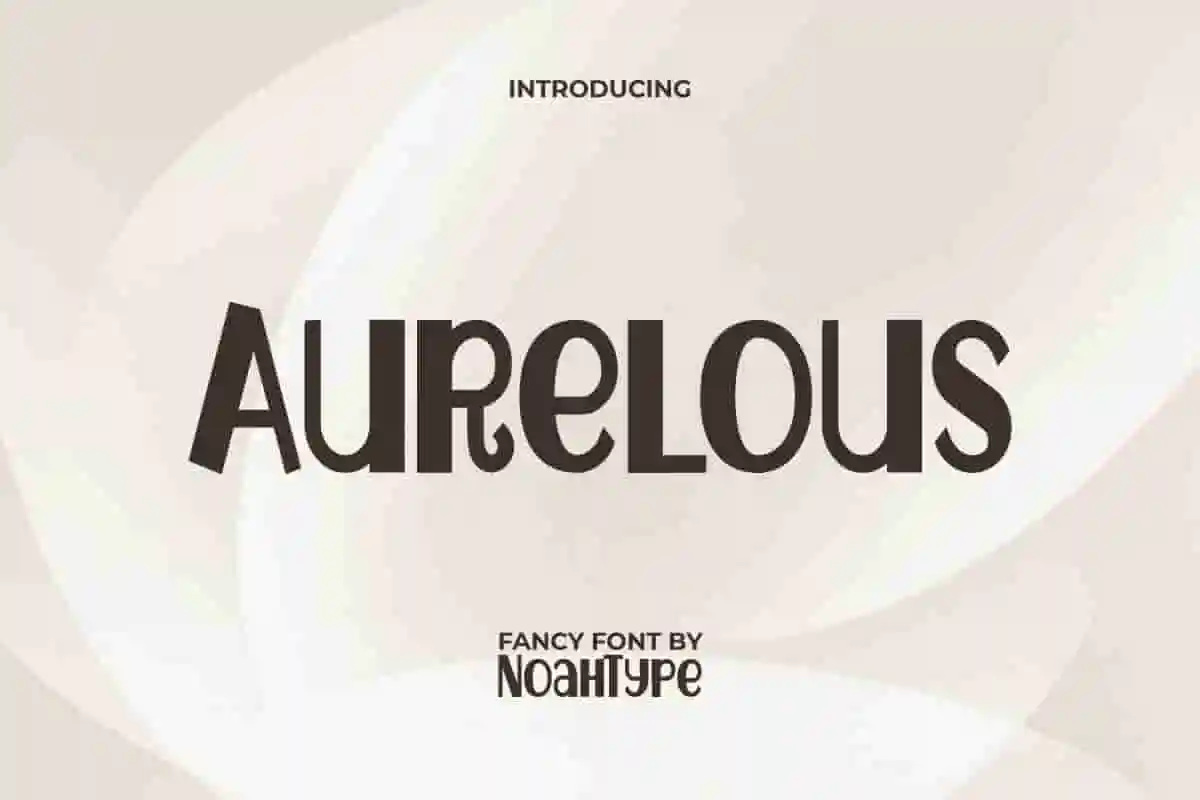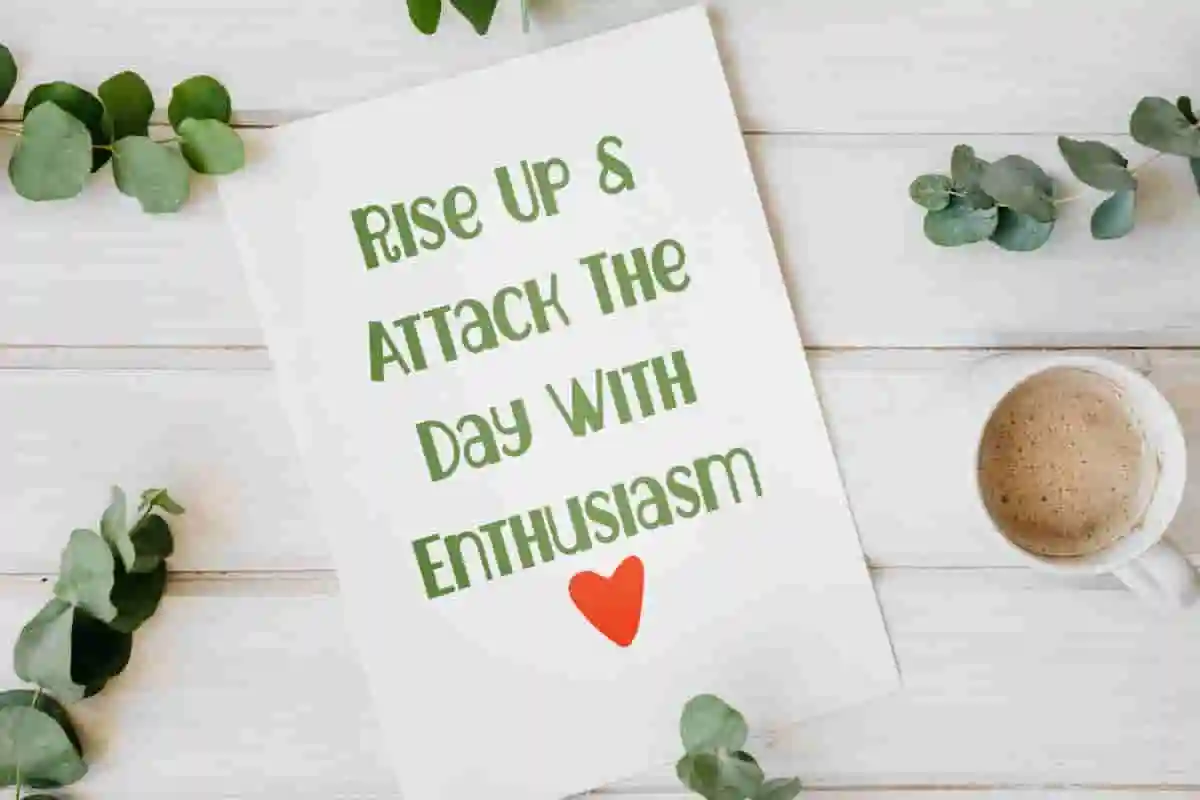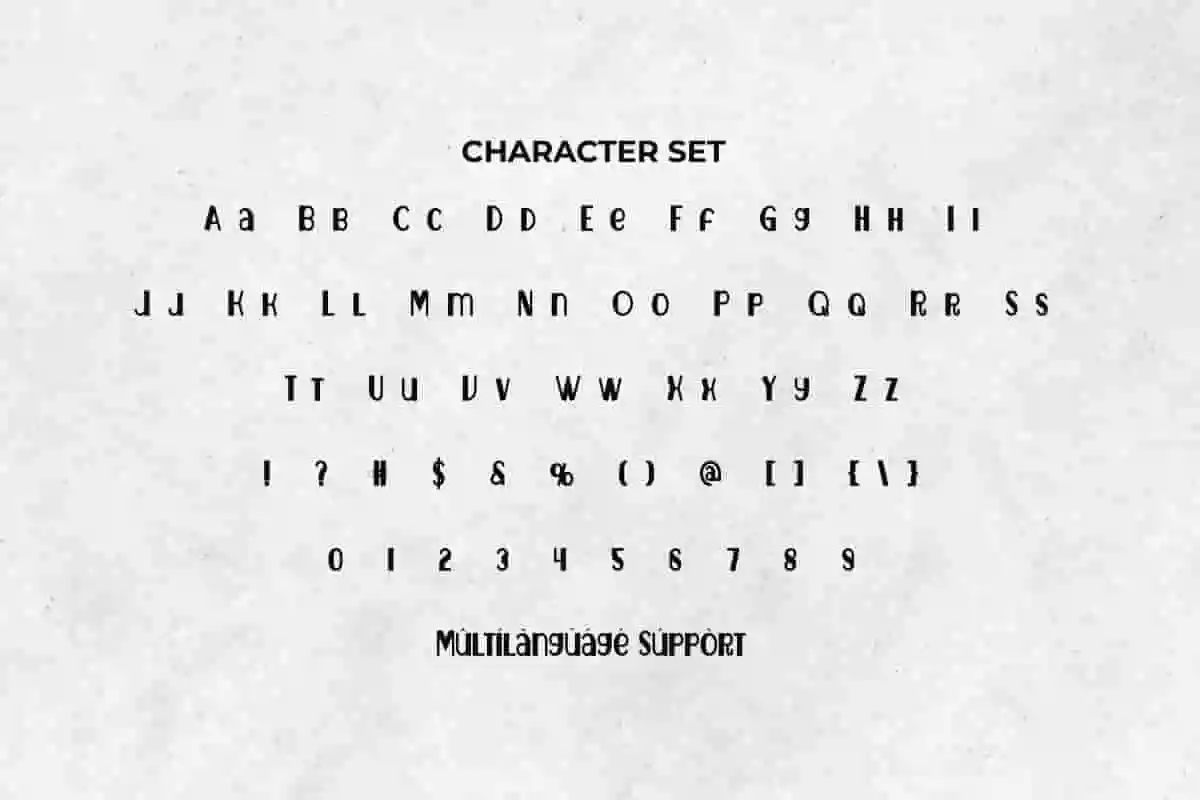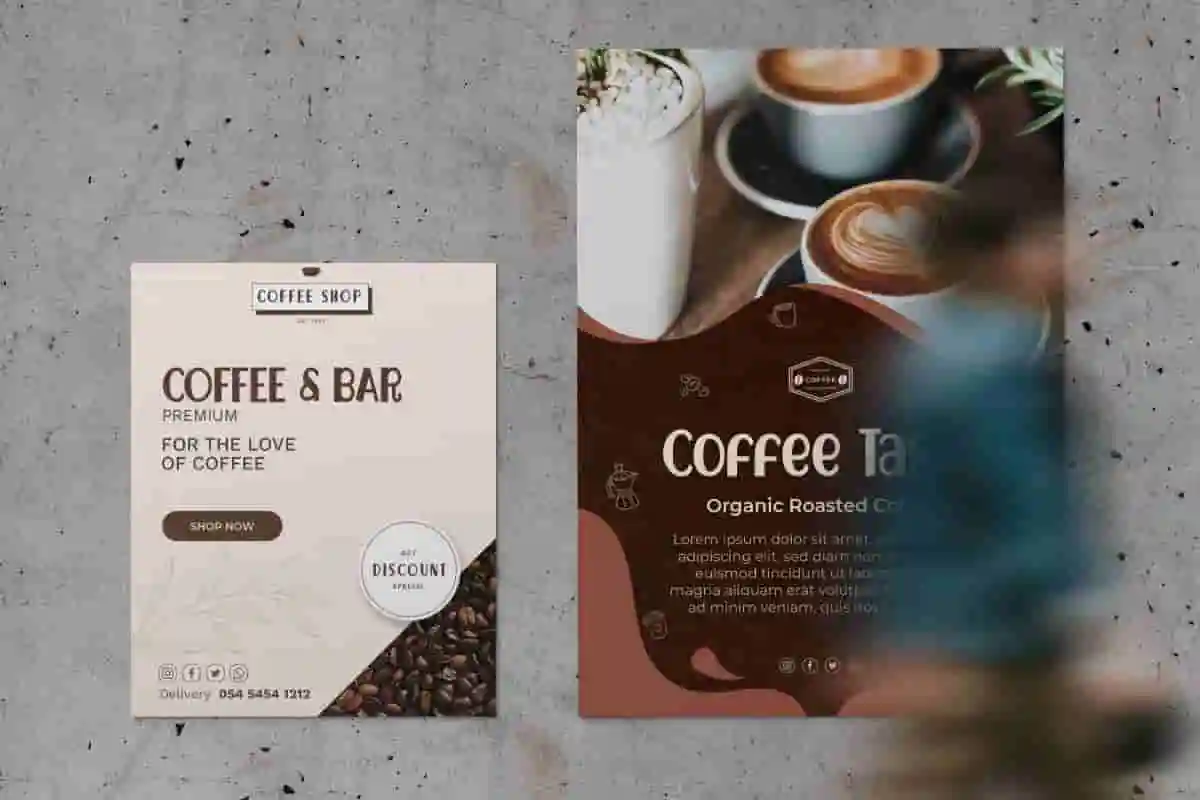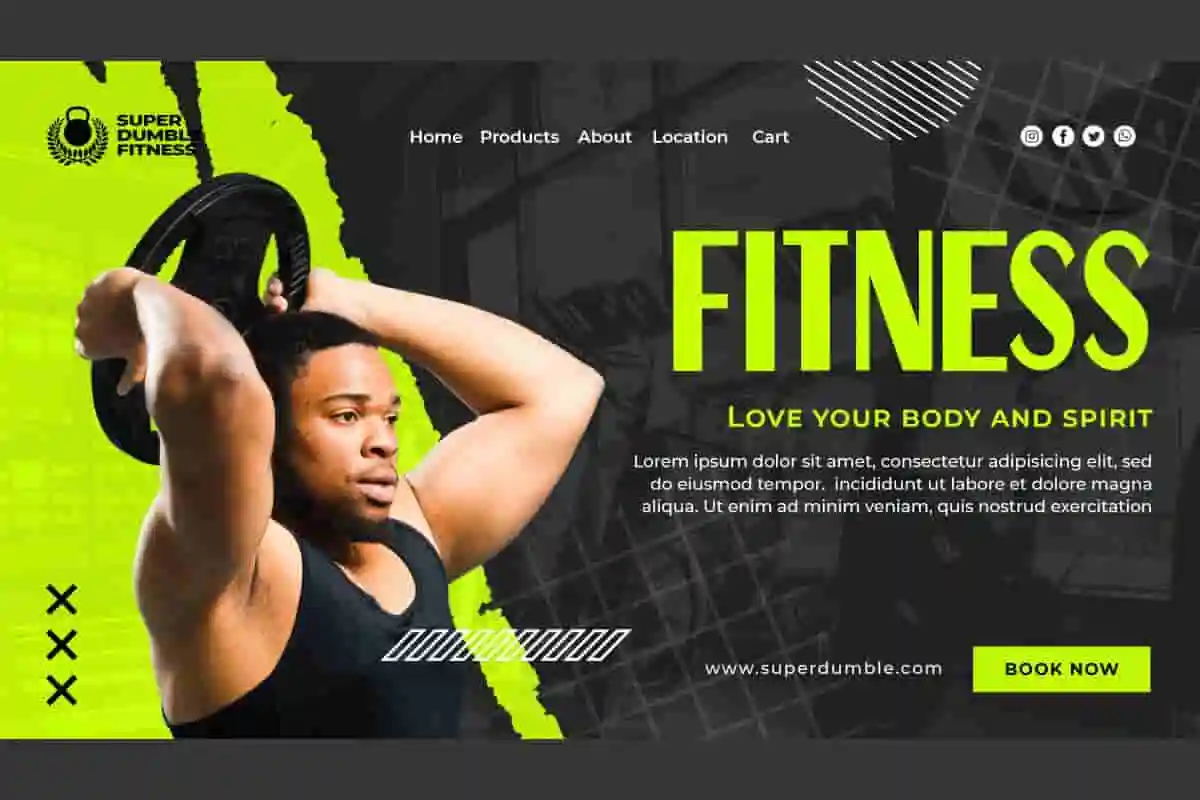
Aurelous Font is a playful and fancy cartoon kids friendly font. The uppercase and lowercase letters in this font can be used for different purposes. You can use uppercase letters to emphasize the look and lowercase letters for a cute look, such as brand image, business card, catalog, cover, custom design, greeting card, invitation, label, menu, poster, product packaging, quote, signage, stationery, web, and more!
Aurelous Font includes full set of Uppercase and Lowercase Basic Characters, Numerals, Punctuation, and Symbol. The characters of this font will give modern and stylish looks, also a perfect choice for many industries, such as advertisement, bakery and pastry, beauty product, café, event or festival, fashion, game, printing, publishing, sport, etc.